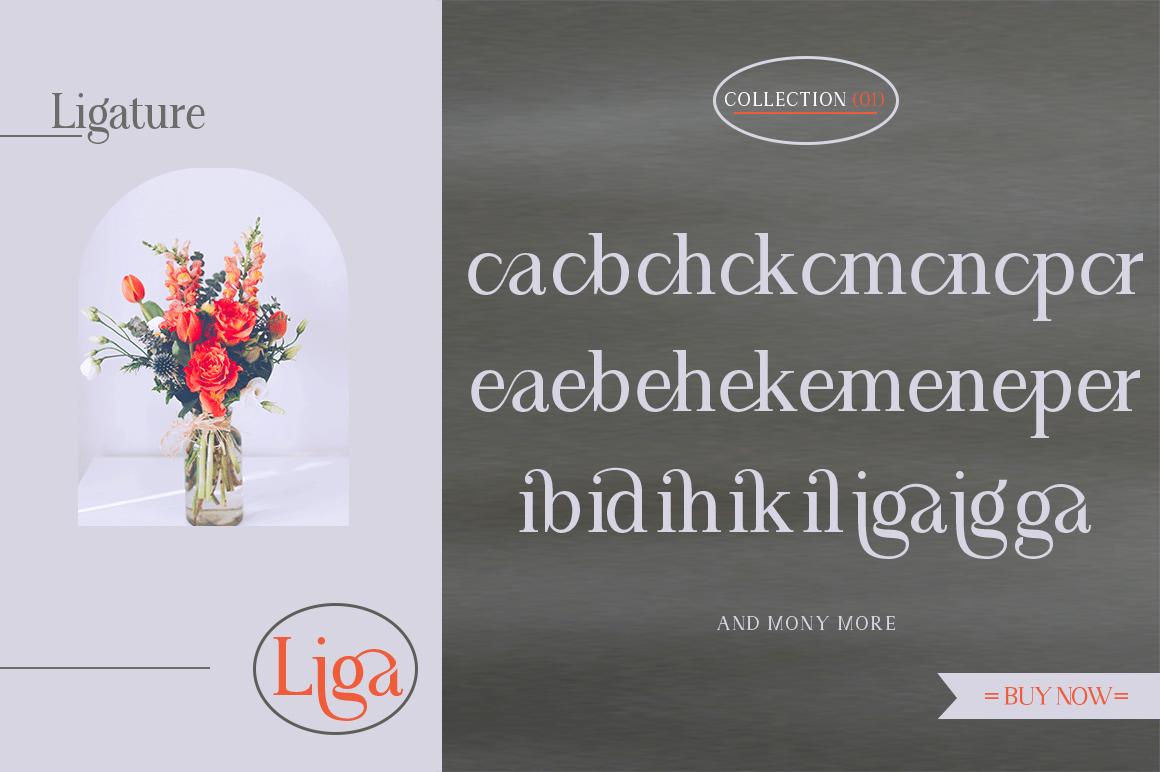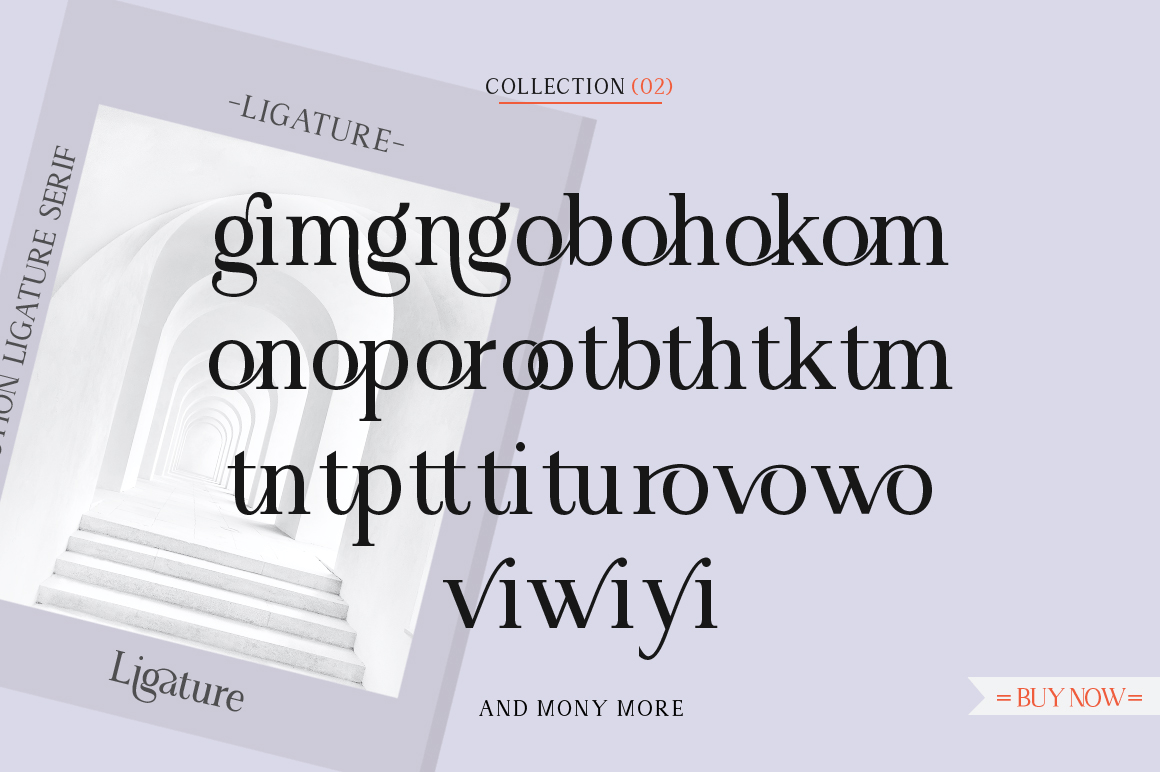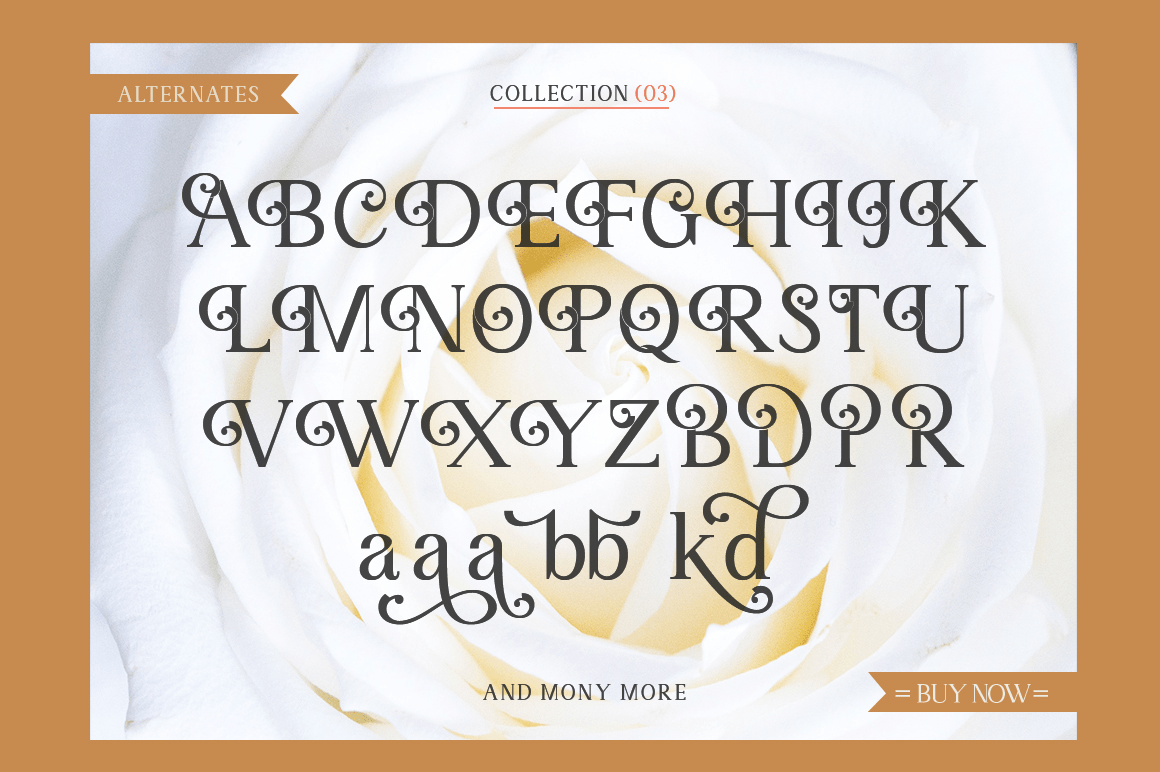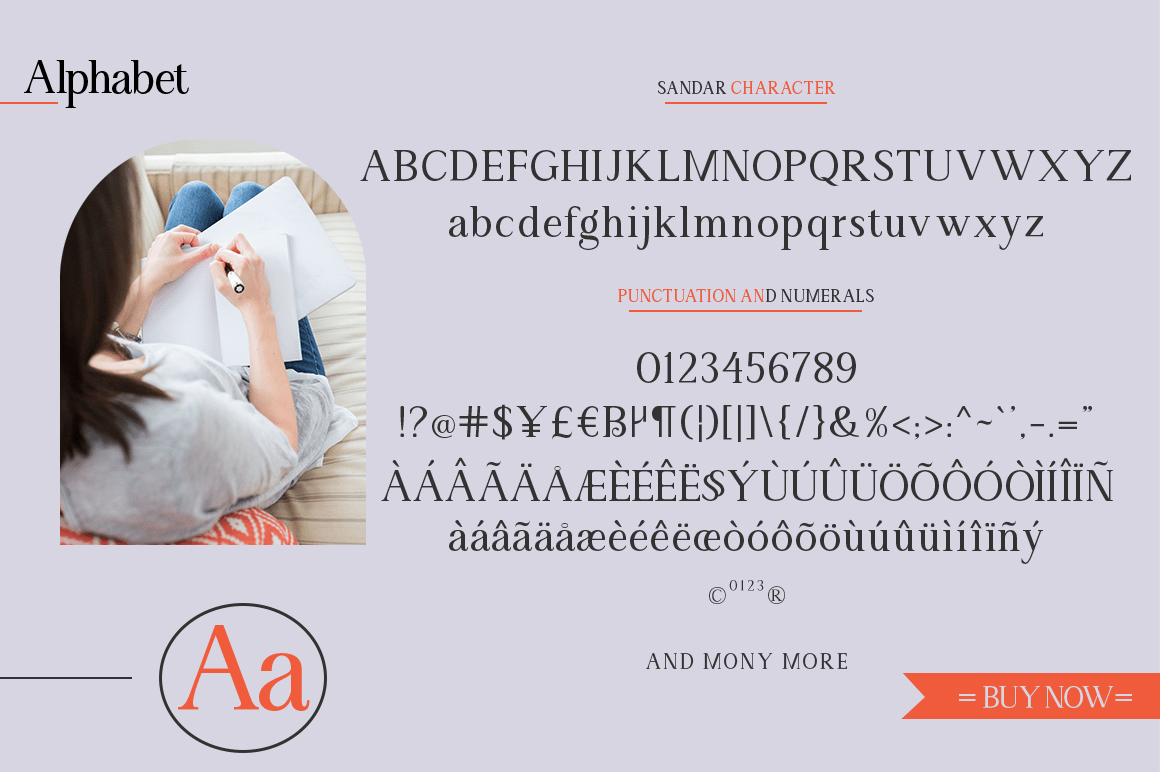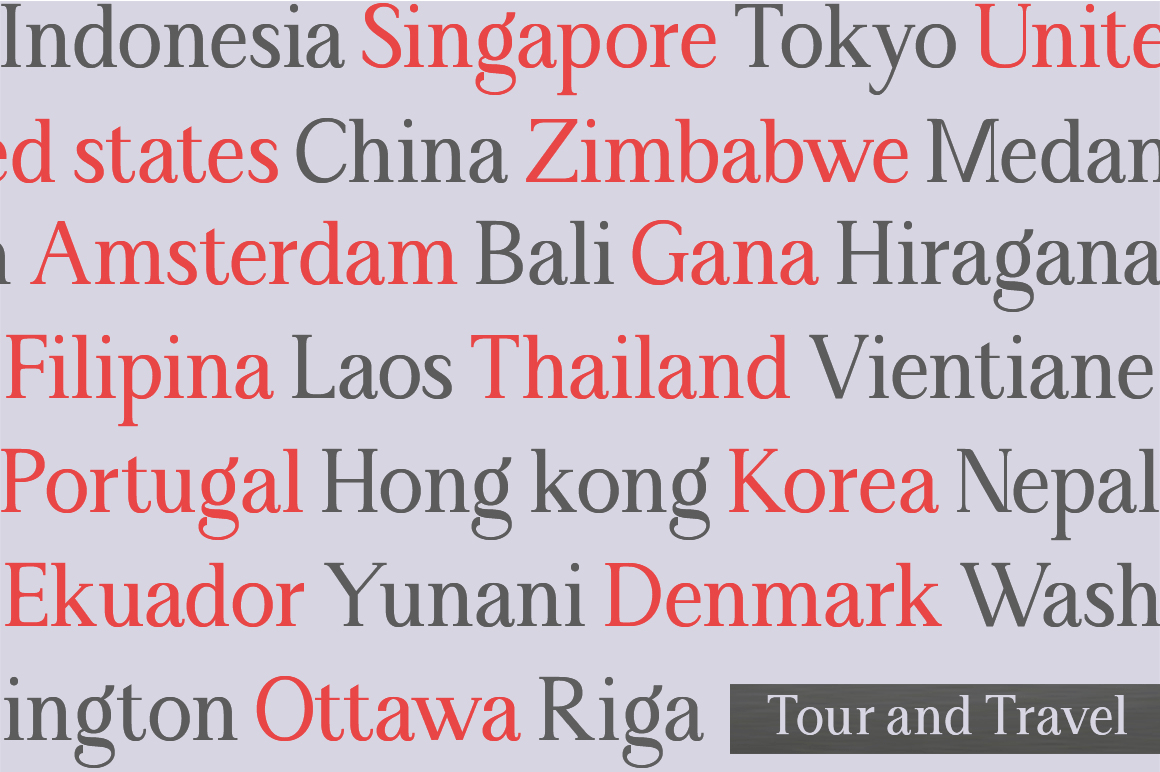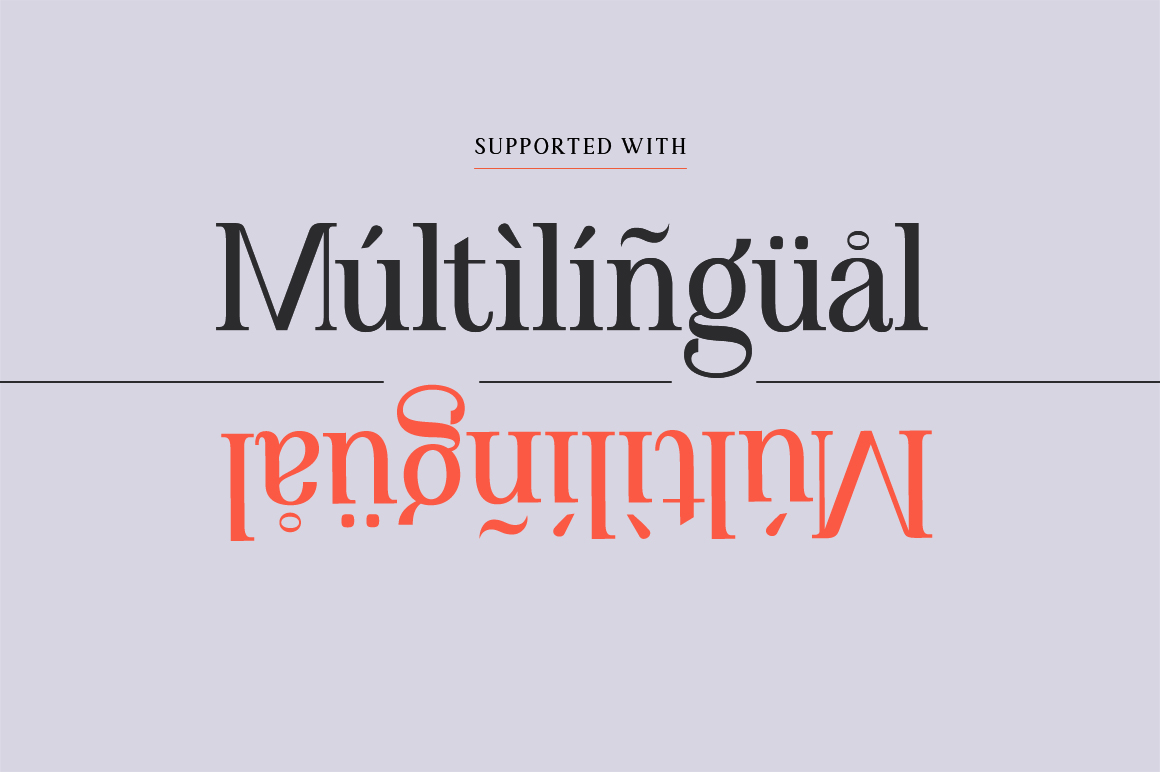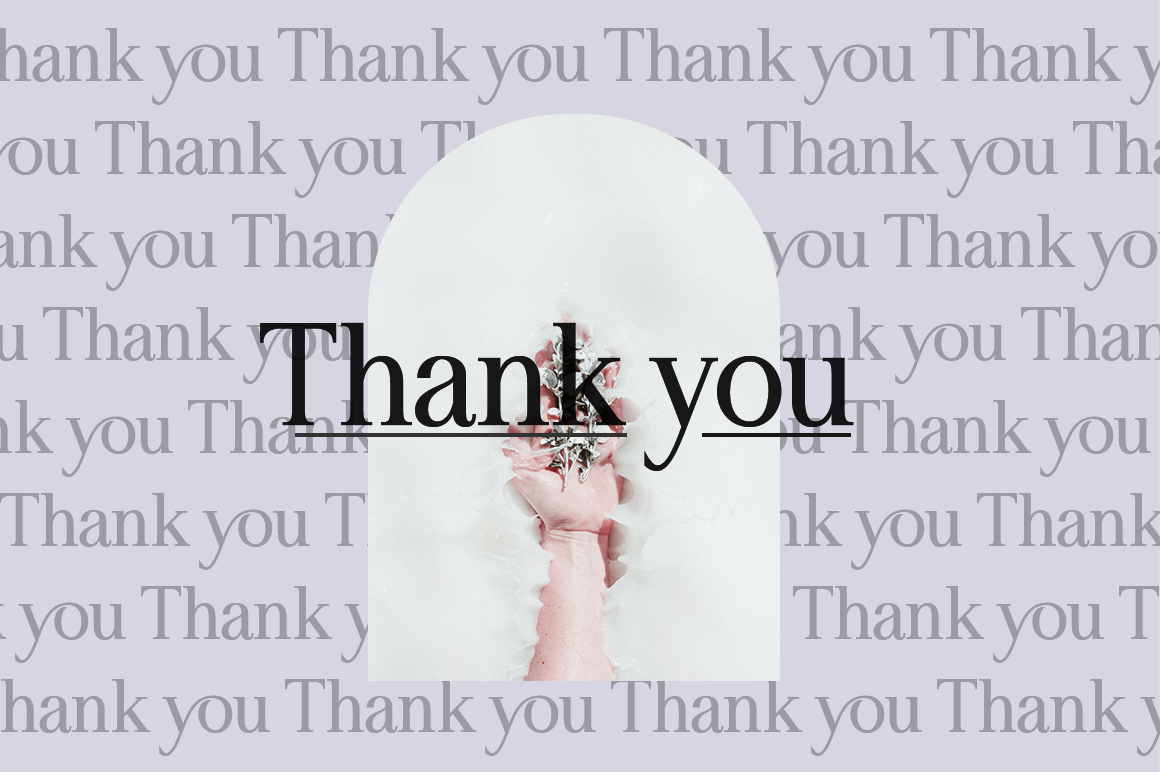
Angilena
Angilena is an elegant and unique font that uses ligatures to connect letters seamlessly. Perfect for adding a unique touch to a word brand's logo, monogram, or quote. Angilena has 51 ligatures as well as numbers and punctuation so it's very versatile. The ligature can be turned off if needed for body text.
The font also includes the following ligatures: ca cb ch ck cm cn cp cr ea eb eh ek em en ep er ib id ih ik il iga ig ga gi mg ng ob oh ok om on op atau oo tb th tk tm tn tp tt ti tu ro vo wo yo vi wi yi